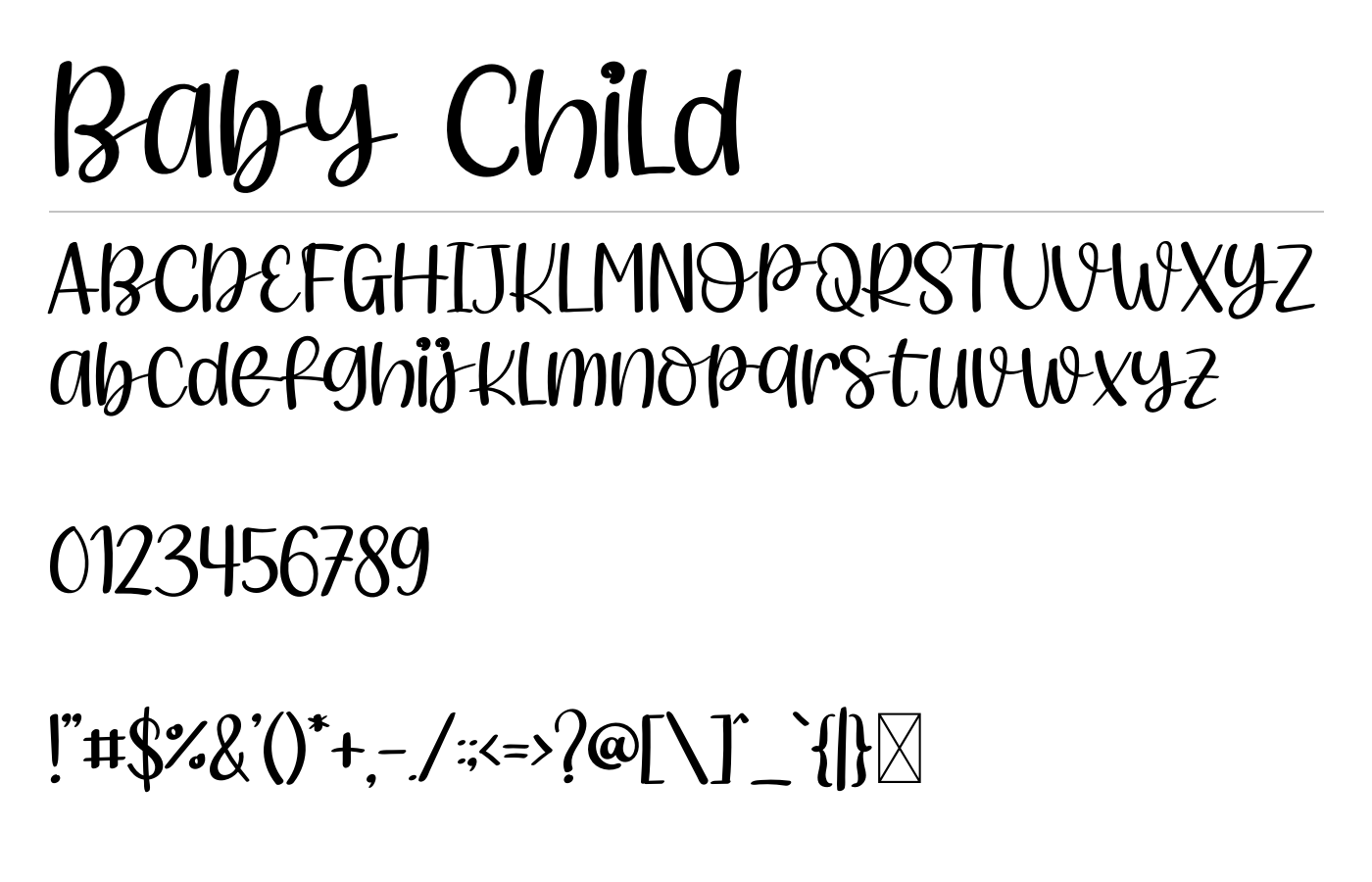
Baby Child is a playful handwritten font featuring tall, narrow letterforms with smooth, rounded strokes and lively curves that give it a warm, friendly personality. Its casual yet neat style makes it ideal for children’s books, playful branding, and creative projects that want to convey approachability and fun. This font works well in headlines and logos where a whimsical, lighthearted feel is desired.
Baby Child Font
About Baby Child Font